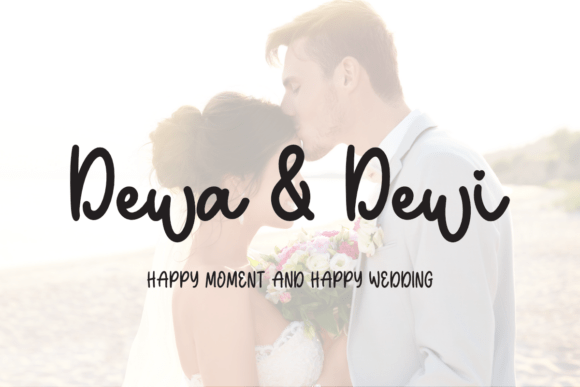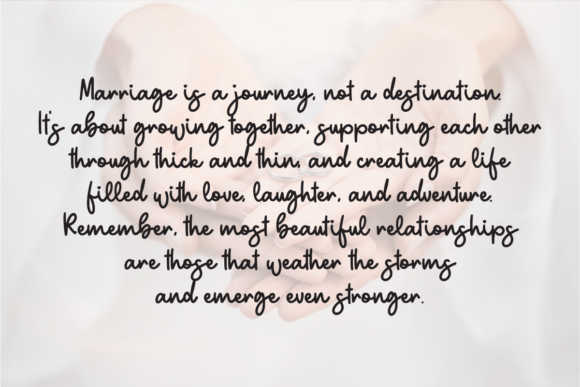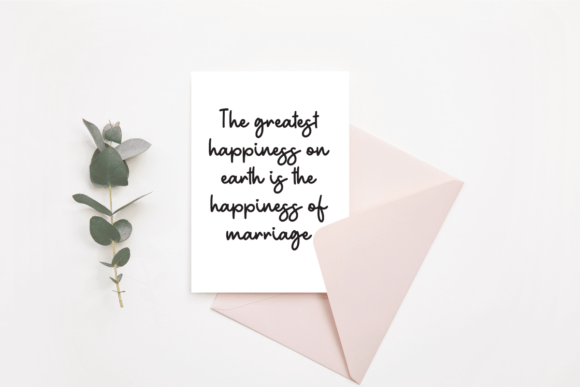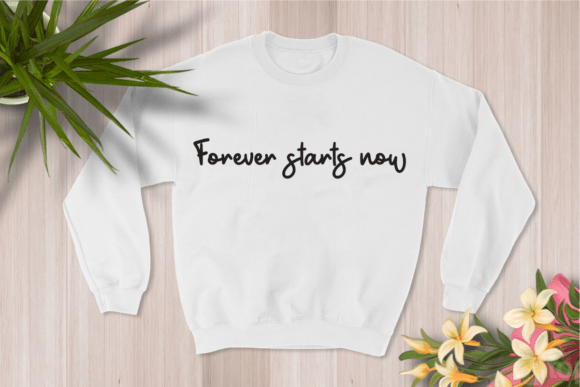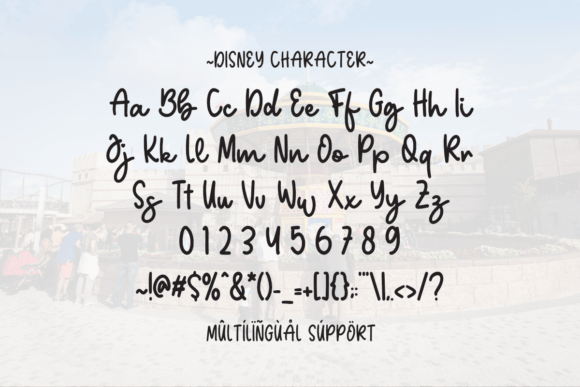
Introducing Disney Font: The Ultimate Choice for Designers and Crafters
Are you a designer or crafter looking for a font that can add a touch of magic to your projects? Look no further than the Disney Font! This sweet and cursive handwritten font is perfect for a variety of design ideas and is sure to bring a joyful and romantic touch to each of your creations.
What is Disney Font?
Disney Font is a beautiful, cursive handwritten font that is inspired by the classic Disney style. It’s a highly versatile font that can be used for a wide range of projects, from paper crafting to embroidery, and from digital designs to laser cutting.
Features of Disney Font
So, what makes Disney Font so special? Here are just a few of its key features:
- Sweet and Cursive: Disney Font is a handwritten font with a sweet and cursive style that’s perfect for adding a touch of elegance to your projects.
- Highly Versatile: This font can be used for a wide range of projects, from paper crafting to embroidery, and from digital designs to laser cutting.
- Easy to Read: Despite its cursive style, Disney Font is easy to read, making it perfect for projects like signs, posters, and headings.
- Scalable: Disney Font is highly scalable, meaning it looks great at any size, from small to large.
Project Ideas Using Disney Font
So, what can you create with Disney Font? The possibilities are endless! Here are a few project ideas to get you started:
- Dog Print Valentine Paper: Create adorable dog-themed valentine paper with Disney Font and make your loved ones feel special.
- Bookmarks: Design beautiful bookmarks with Disney Font and make reading even more fun.
- Mugs: Add a touch of personality to your mugs with Disney Font and make them perfect for hot chocolate or coffee.
- 100 Days of School: Create a fun and colorful project for the 100th day of school with Disney Font.
- Planner: Use Disney Font to create a beautiful and functional planner that’s perfect for keeping track of your daily tasks.
- Tumbler Wrap: Design a stunning tumbler wrap with Disney Font and make your drinkware stand out.
- Sublimation: Use Disney Font for sublimation projects, such as custom t-shirts, mugs, and more.
- Embroidery: Create beautiful embroidery projects with Disney Font, such as custom patches, iron-on designs, and more.
- Procreate: Use Disney Font in Procreate to create stunning digital art and designs.
- Notion: Design a beautiful notion with Disney Font and make your notes and ideas stand out.
- Tumbler: Create a custom tumbler with Disney Font and make it perfect for hot or cold drinks.
- Laser Cut: Use Disney Font for laser cutting projects, such as custom signs, decorations, and more.
Why Choose Disney Font?
So, why should you choose Disney Font for your projects? Here are just a few reasons:
- Unique Style: Disney Font has a unique and distinctive style that’s sure to make your projects stand out.
- High-Quality: Disney Font is a high-quality font that’s designed to look great at any size.
- Versatility: This font can be used for a wide range of projects, making it a great addition to any designer’s or crafter’s toolkit.
In conclusion, Disney Font is a beautiful and versatile font that’s perfect for designers and crafters. Its sweet and cursive style makes it ideal for adding a touch of elegance and whimsy to your projects. With its ease of use, high-quality design, and versatility, Disney Font is a great choice for any project. So why not give it a try and see what amazing creations you can come up with?